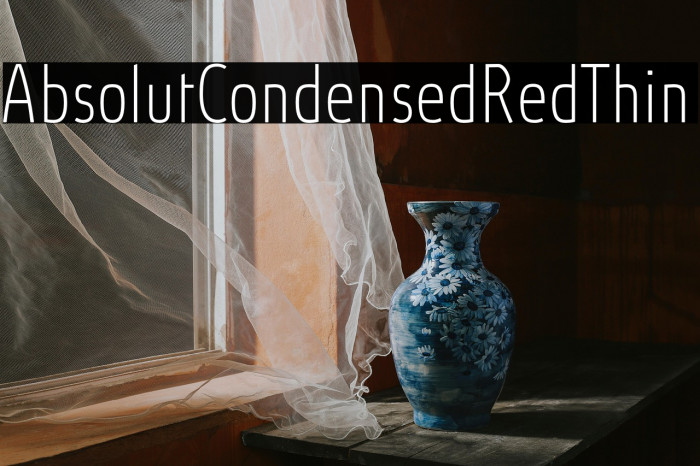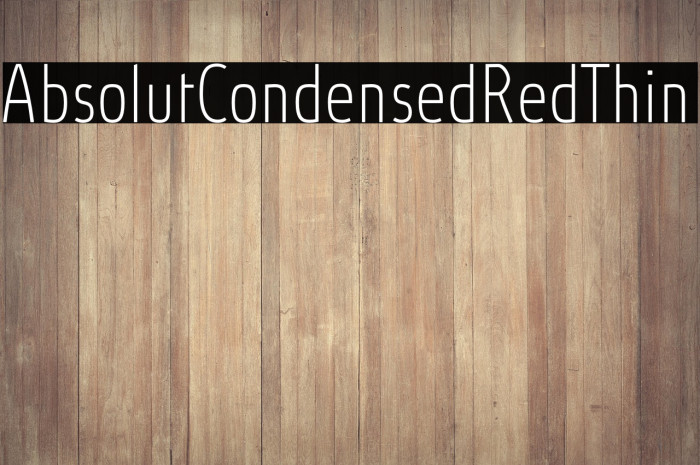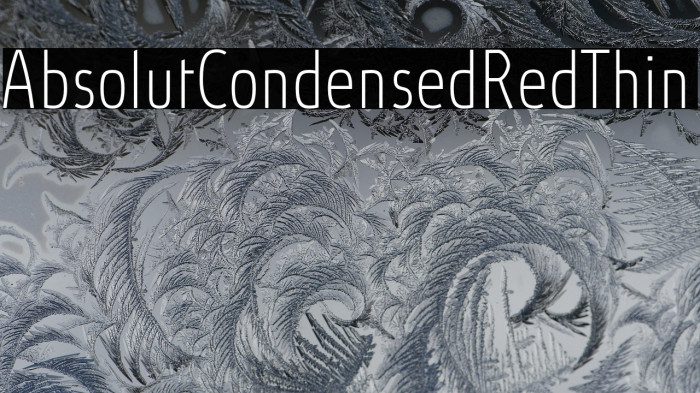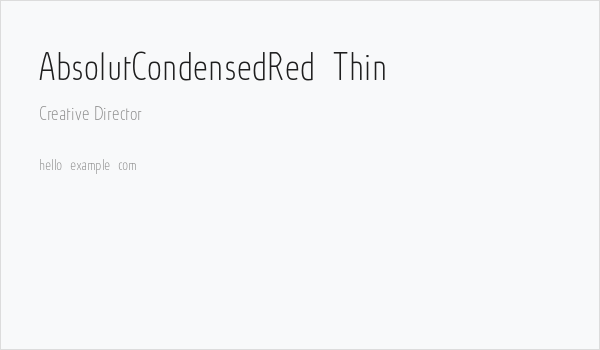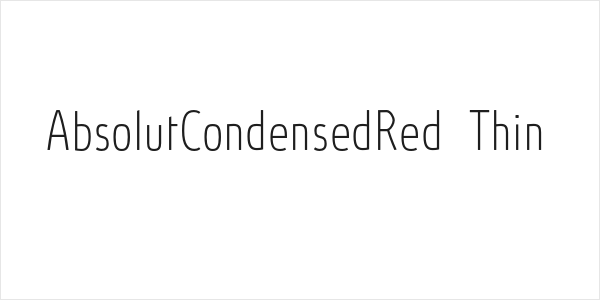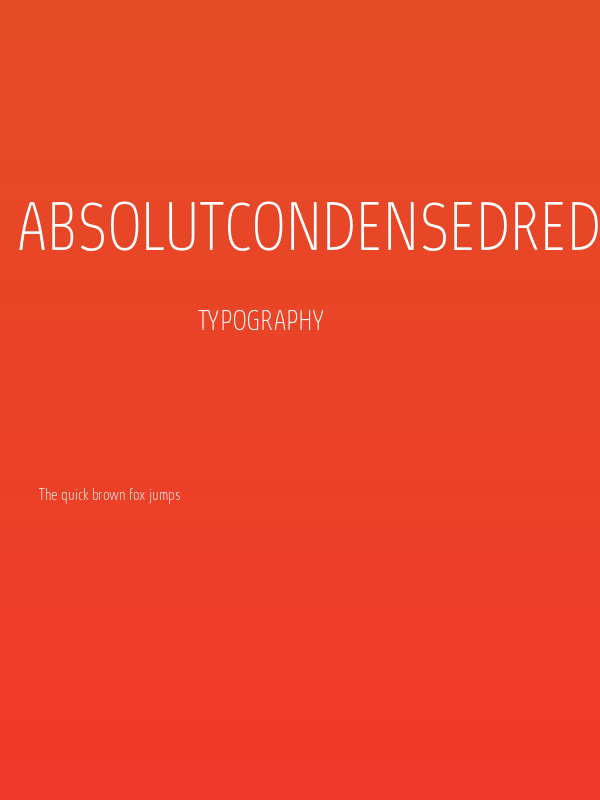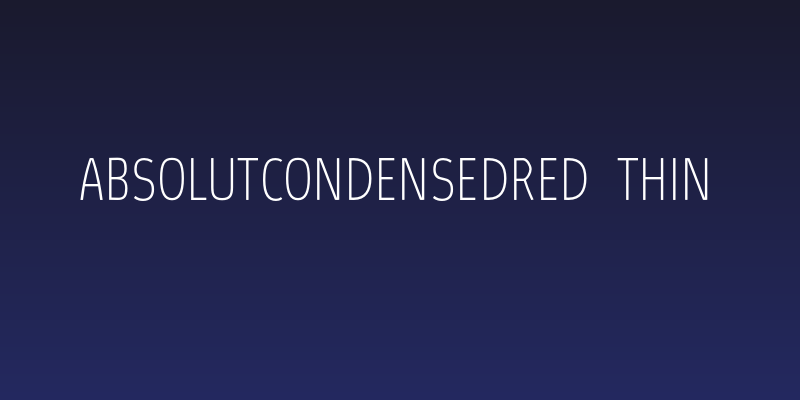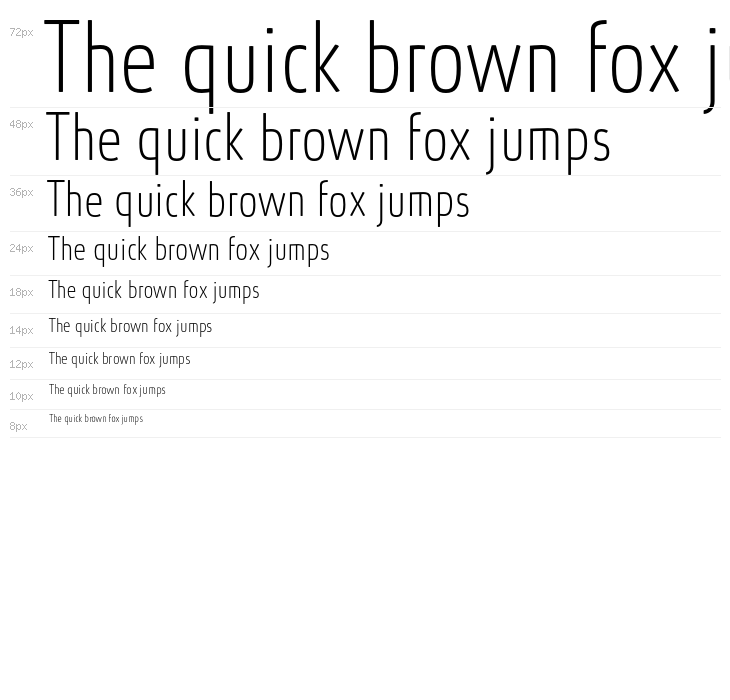
AbsolutCondensedRed-Thin Font
AbsolutCondensedRed-Thin Description
This font features a sleek and modern design with a condensed structure, giving it a streamlined appearance. The characters are thin, with a consistent stroke width that contributes to its minimalist aesthetic. The uppercase letters are tall and narrow, while the lowercase letters maintain a similar proportion, enhancing readability. The font's geometric shapes and clean lines make it suitable for contemporary design projects. It lacks any decorative elements, focusing instead on clarity and simplicity. The uniformity in character height and width creates a harmonious look, making it ideal for use in settings where space is limited but legibility is crucial.
| Proposed Projects | Ideal for branding, editorial design, packaging, and web design where a modern and clean look is desired. |